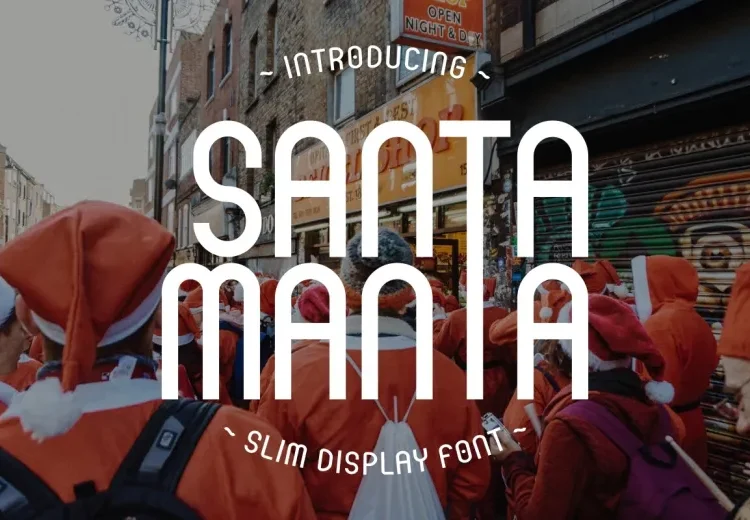
Santa Manta Font
Santa Manta is the perfect font to capture the festive spirit of Christmas. Designed as a small display font, it embodies the magic of the holiday season, making it ideal for various festive projects.
Key Features of Santa Manta:
• Holiday Spirit: Captures the essence of Christmas with a playful and festive design.
• Versatile Use: Ideal for a wide range of holiday-related projects including greetings, invitations, and decorations.
• Small Display Font: Perfect for adding a charming touch to smaller text elements.
Ideal Uses for Santa Manta:
• Holiday Greeting Cards: Bring your Christmas cards to life with this whimsical font.
• Invitations: Create festive invitations for holiday parties or events.
• Wrapping Gifts: Add a special touch to gift wrapping with personalized tags or messages.
• Logo Design Projects: Infuse your holiday-themed logos with festive cheer.
• Digital Art Projects: Enhance your digital art with a touch of Christmas magic.
• Crafting: Use it in various crafting projects to spread holiday joy.